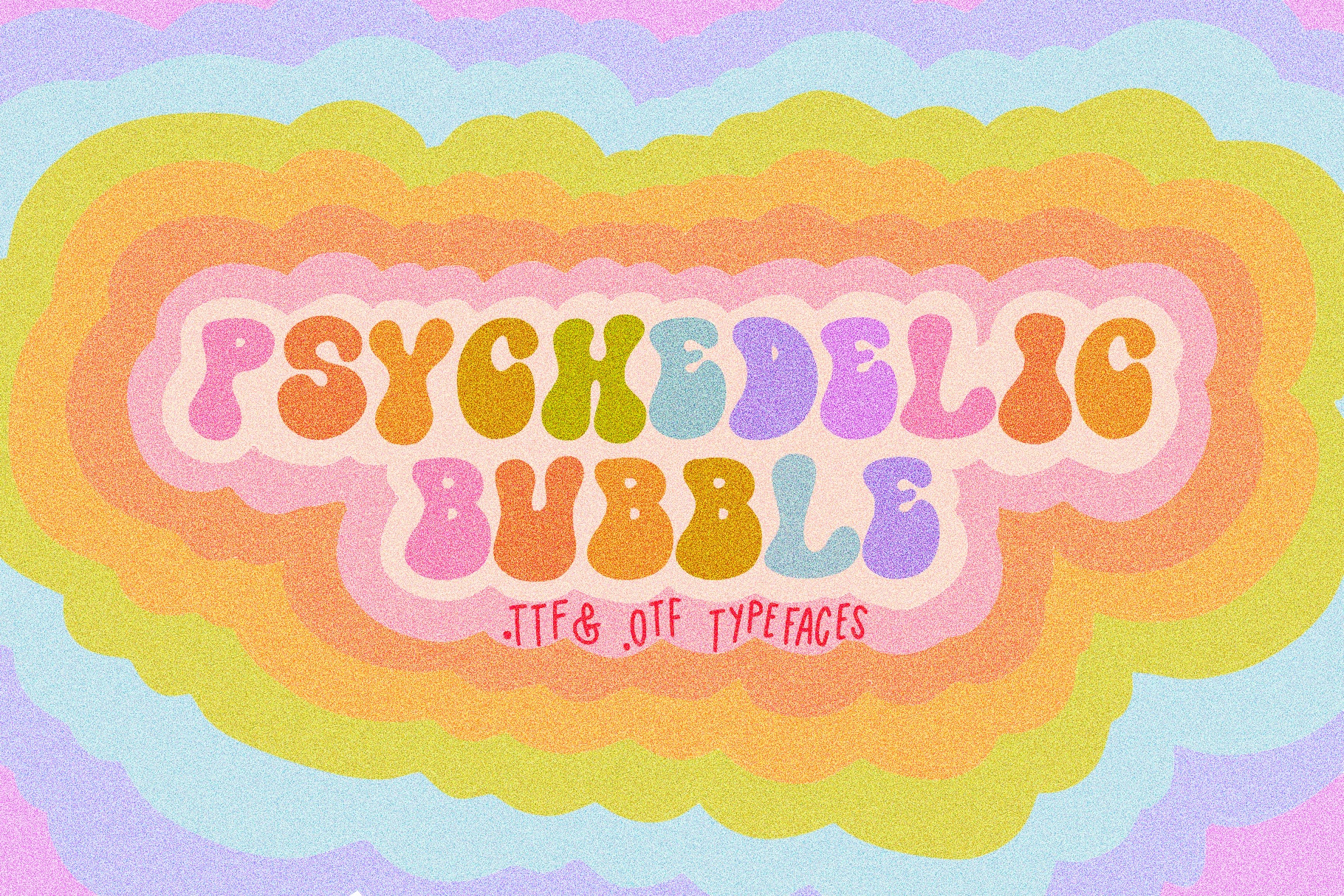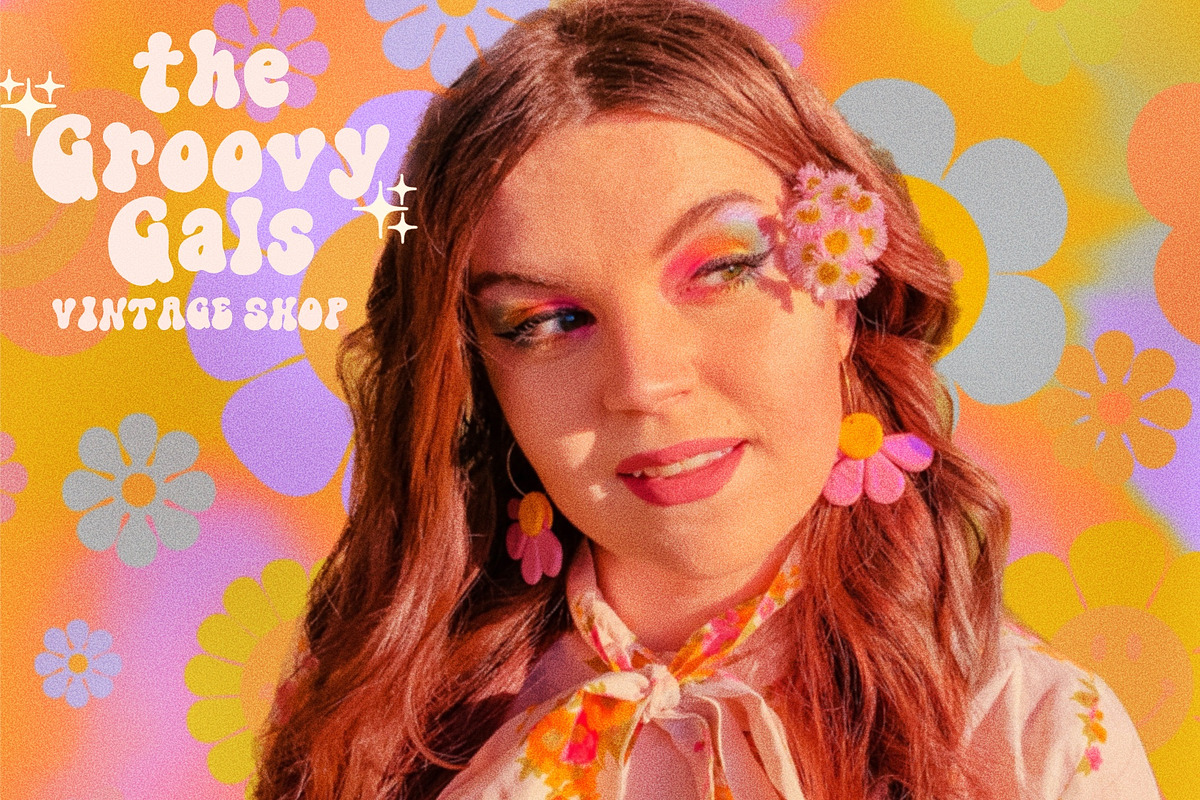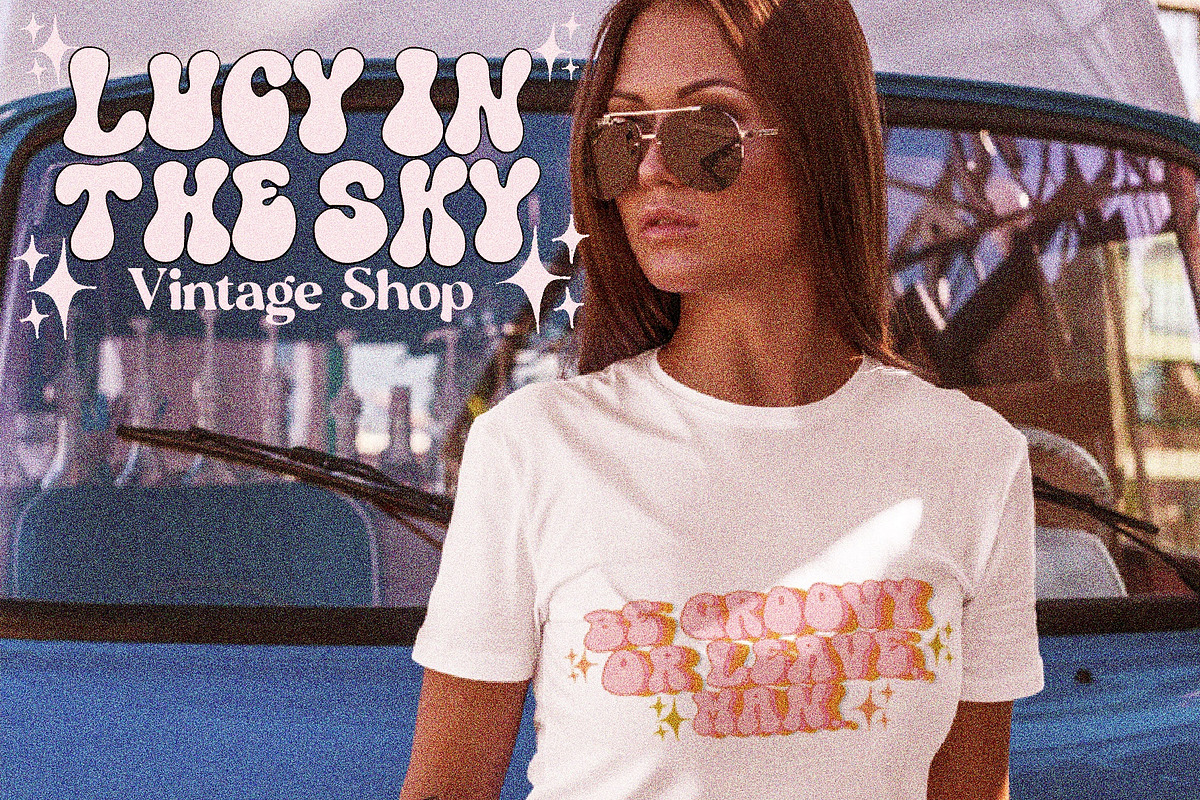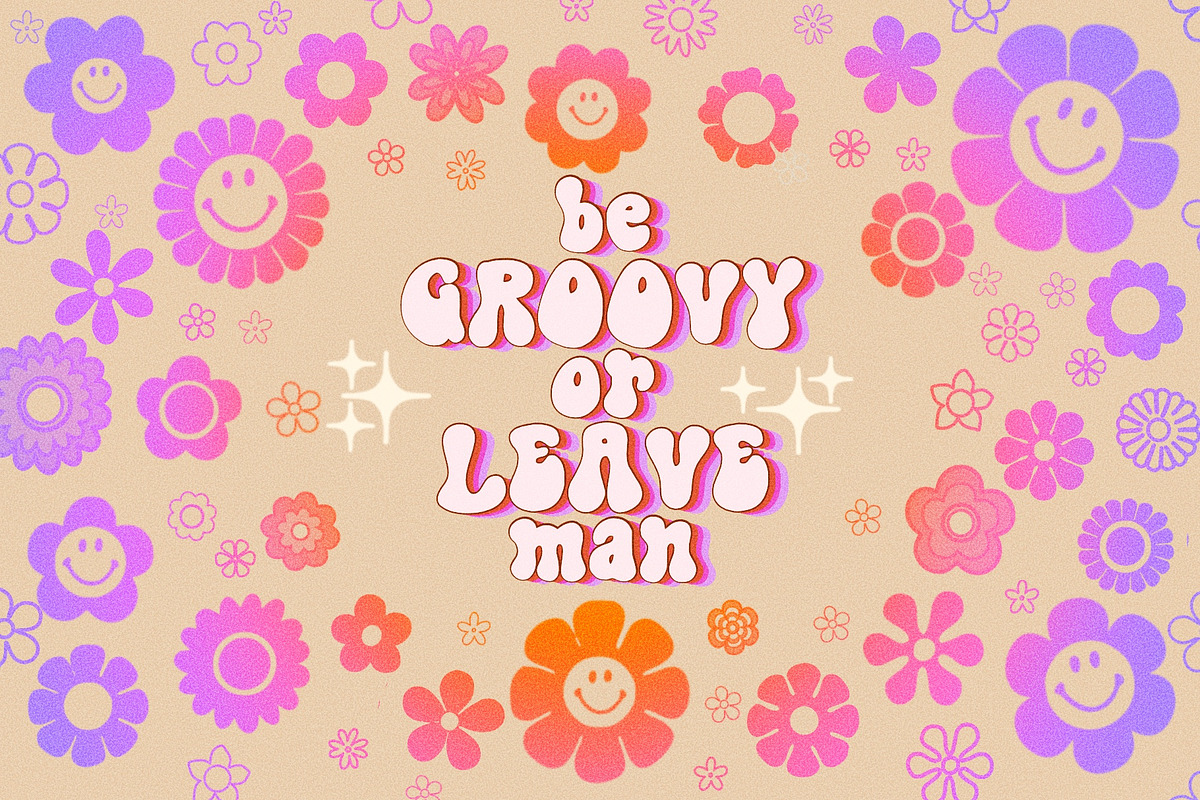
Psychedelic Bubble 70s Font
Now with more characters! The psychedelic bubble font! This is one of my favorite lettering styles, so I decided to make it into a font for you all to enjoy! I love that 1970s bubble letter style, and think it really ties together your piece to give it that vintage feel. This font has uppercase and lower case, numbers and punctuation. This purchase comes with the OTF and TTF, so you can have both in case you need it!